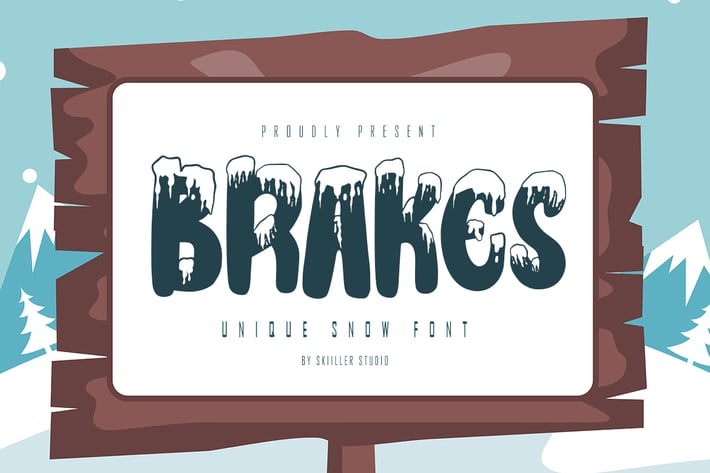
Brakes - Unique Snow Font
Brakes - Unique Snow Font was inspired by the typography of natural snow. Written in quick it's a bit dry and looks realistic. It is suitable for commercial needs or magazine fashion design, offer logos, product packaging, headlines, posters, merchandise, social media & other greeting cards.